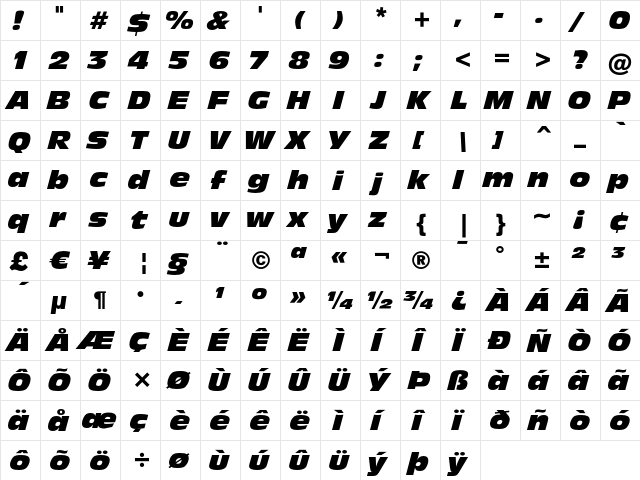
Incised 901 Nord Italic
Design Context for Incised 901 Typeface
Incised 901 is a composed and adaptable typeface that performs quietly and consistently across a wide range of design contexts. Its italic angle brings a sense of urgency and motion to the letterforms.